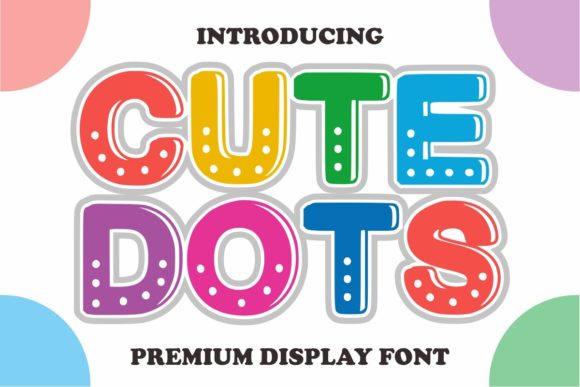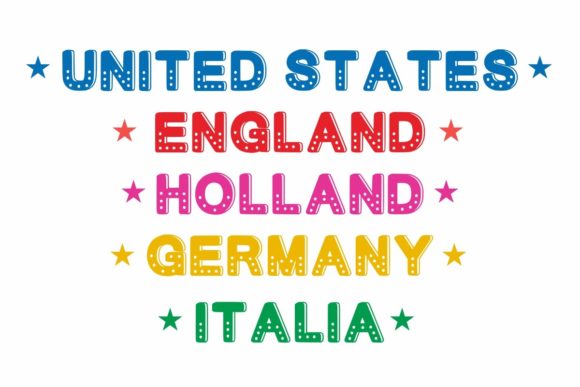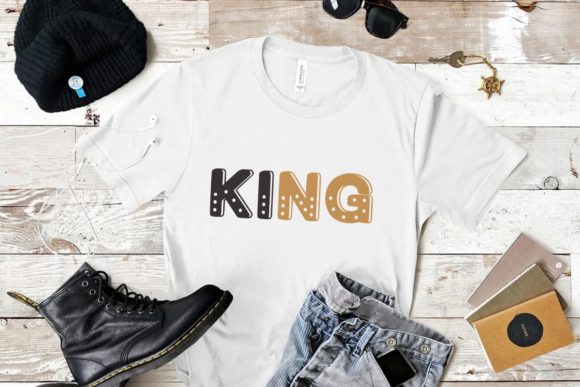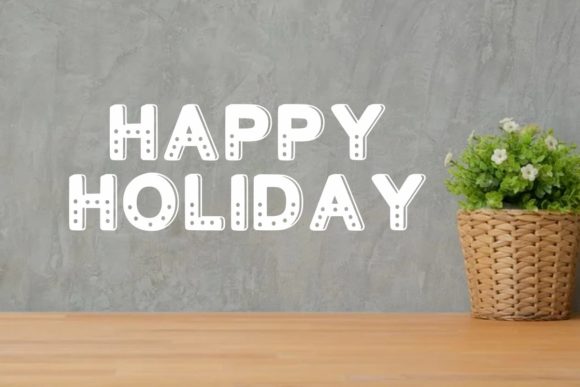
Cute Dots Font
About the Cute Dots Font
Step up your design game with Cute Dots Font, a font that exudes confidence and style. Cute Dots is a childish and fun display font, designed for kids. It is easy-to-read and conveys impeccable friendliness. Whether you’re using it for crafts, digital design, text effect, feed instagram, presentations, or greeting cards, this font has the potential to become your favorite go-to choice.
Cute Dots excels in applications requiring a playful and approachable aesthetic. Ideal uses include children’s book illustrations, playful branding for toys or sweets, and eye-catching headlines on posters or social media graphics. Its friendly nature makes it perfect for greeting cards and invitations targeting a younger audience.
However, its highly decorative nature makes it unsuitable for body text or lengthy paragraphs. Similarly, its informal character limits its application in professional contexts or user interfaces requiring high readability.
Pairing Cute Dots with a clean sans-serif like Open Sans for body text or a simple serif like Merriweather for supporting text creates a balanced and visually appealing combination. For a more whimsical feel, consider pairing it with a script font like Pacifico.
Cute Dots Font Usage Examples
Cute Dots Font Example